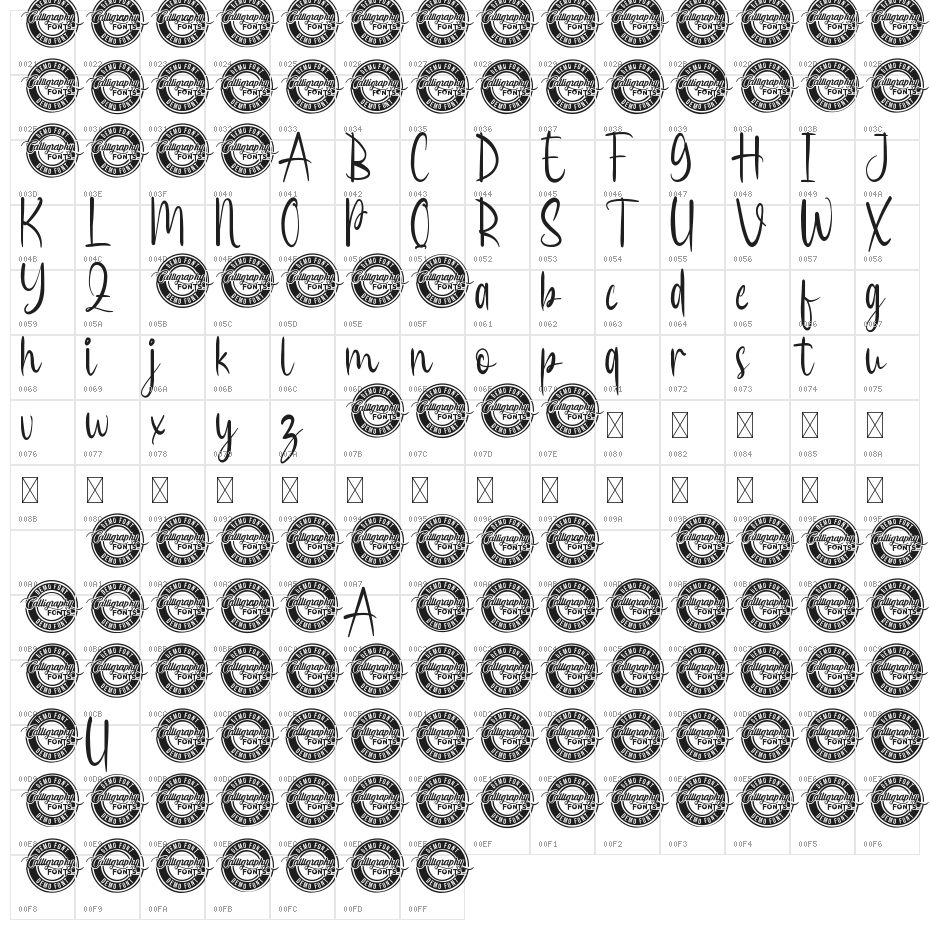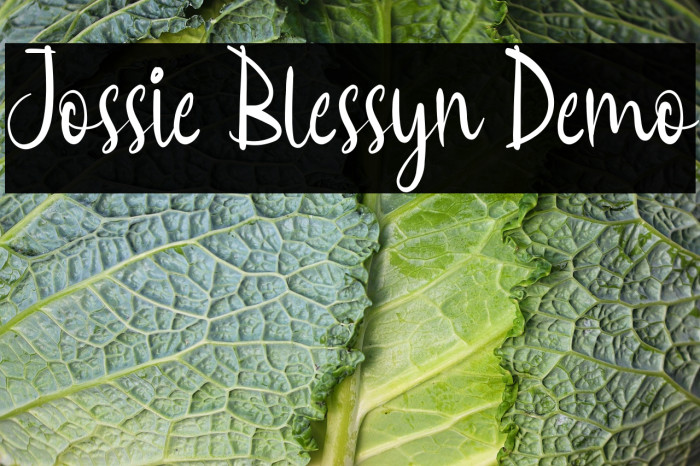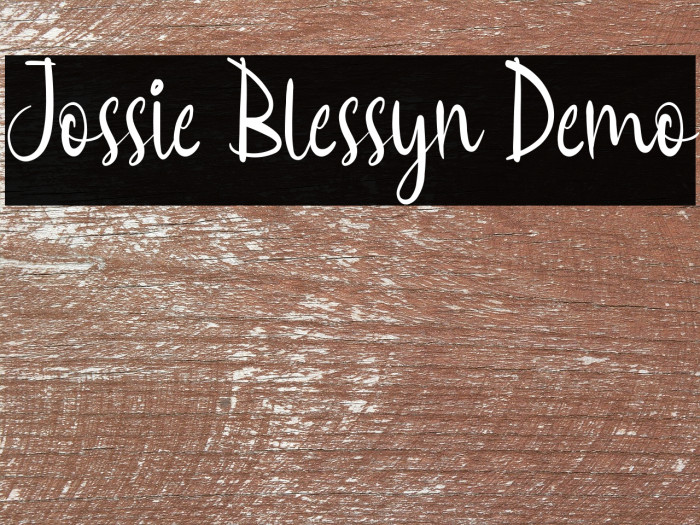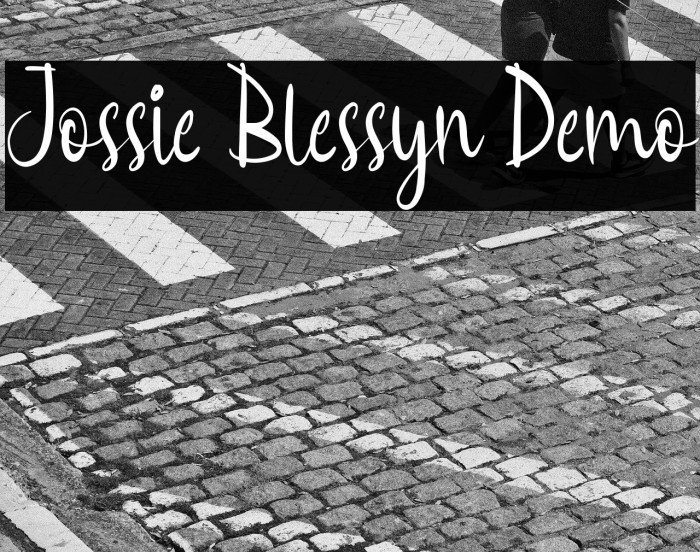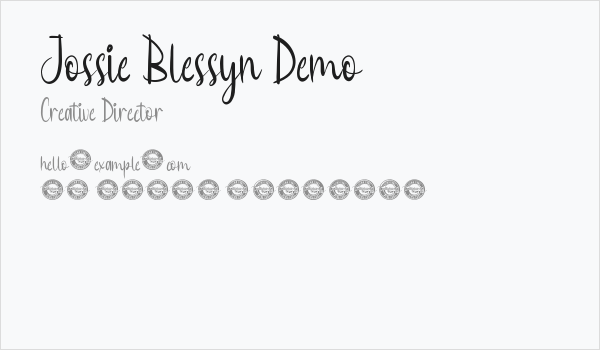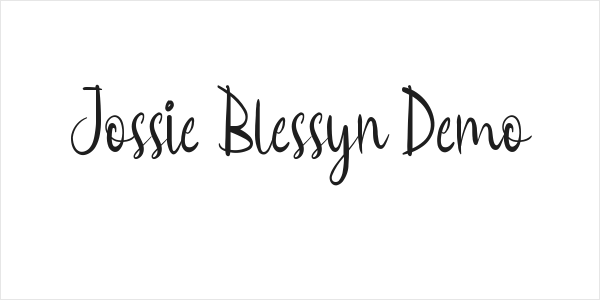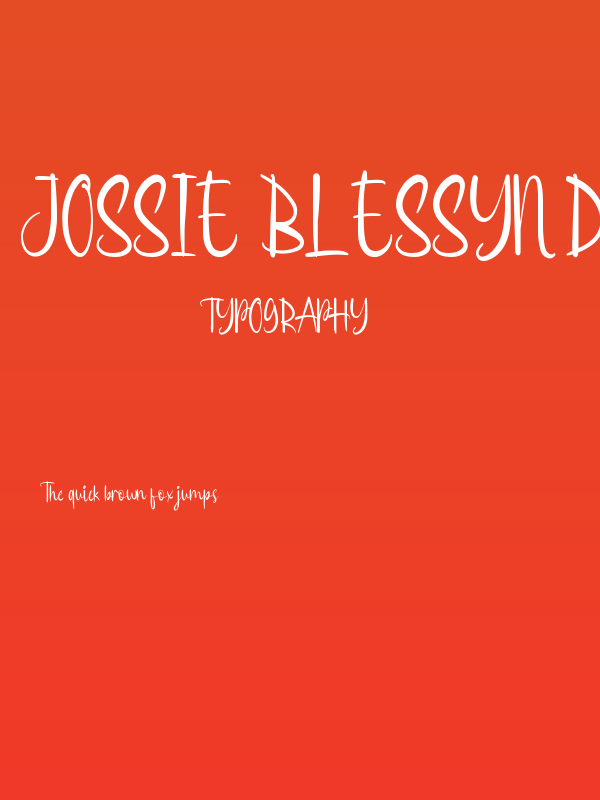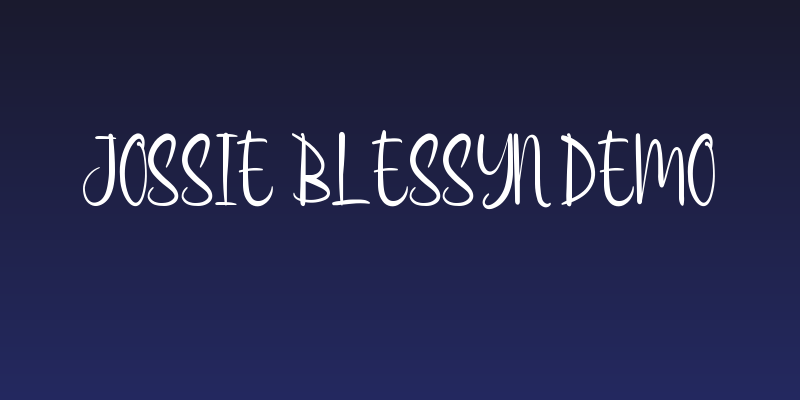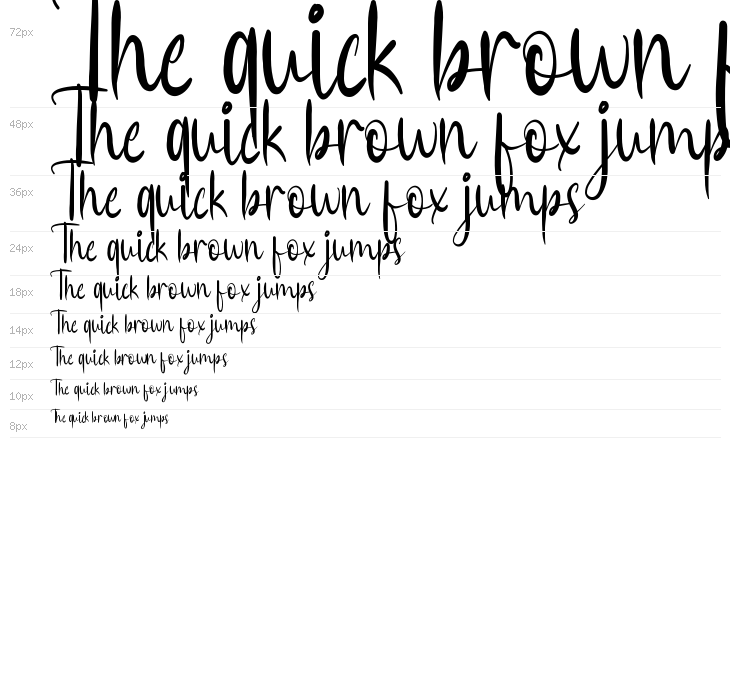
Jossie Blessyn Demo Font
Jossie Blessyn Demo Description
This font features a playful and artistic handwritten style, characterized by its flowing and dynamic letterforms. The uppercase letters are tall and slightly narrow, with a whimsical flair that adds a sense of movement. The lowercase letters maintain a consistent style, with loops and curves that enhance the font's lively appearance. The strokes vary in thickness, providing a medium contrast that adds depth and interest. The overall design is informal yet elegant, making it suitable for creative and expressive projects. The special characters are integrated seamlessly, maintaining the font's cohesive look.